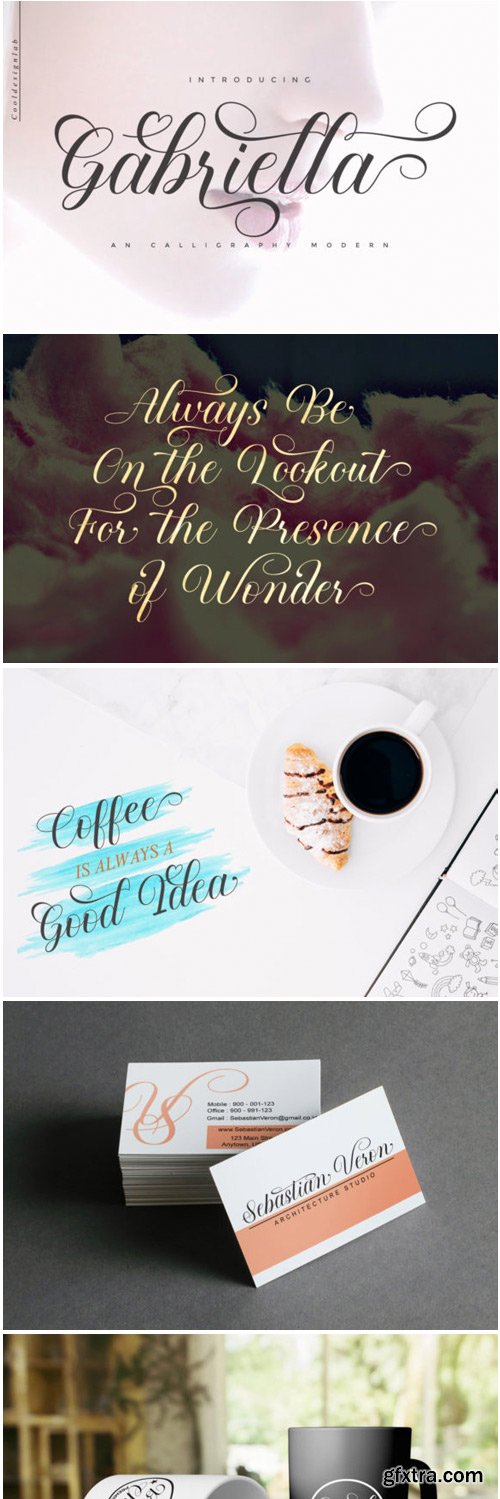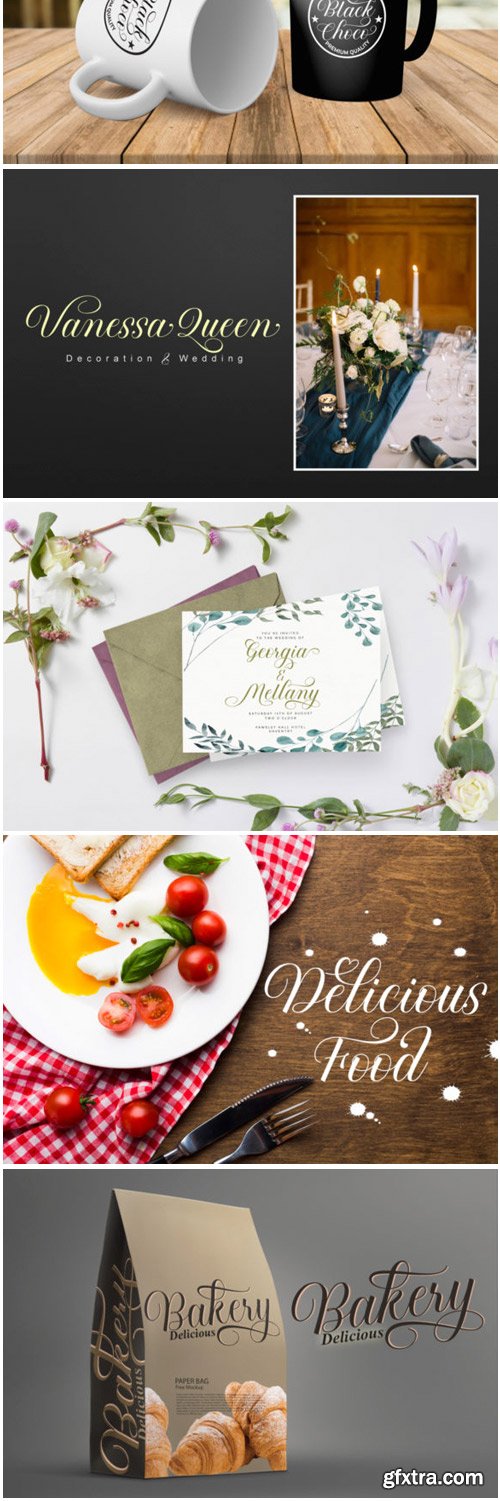
Gabriella Script Font
Gabriella is a charming and extraordinary script font with bold swashes. It’s the ideal font for adding a cool feel to any crafting project!